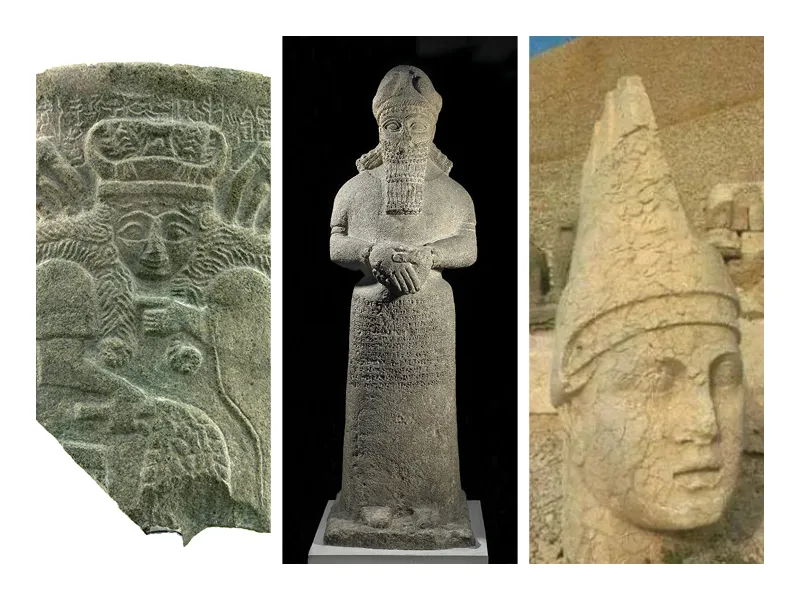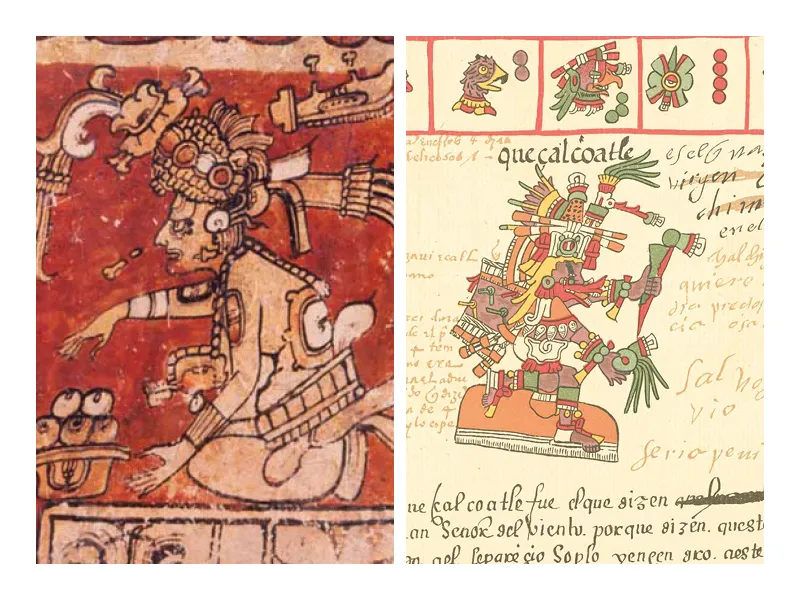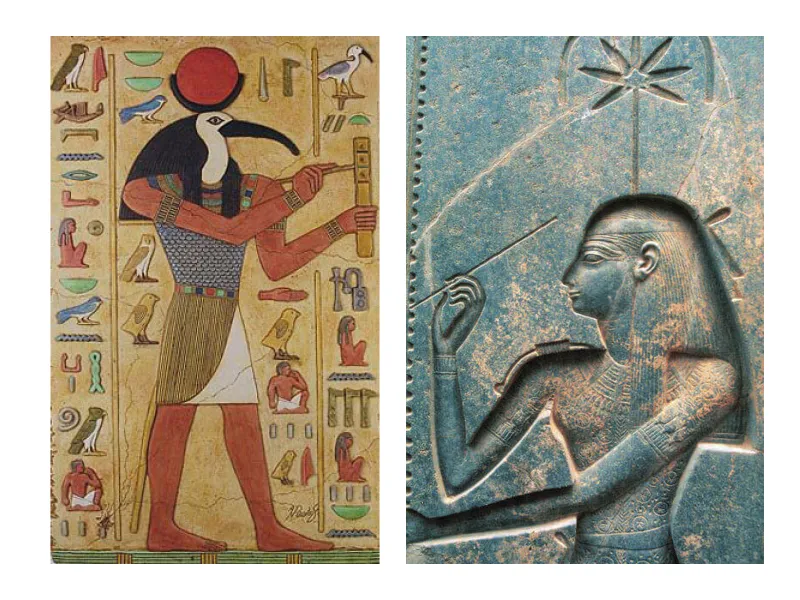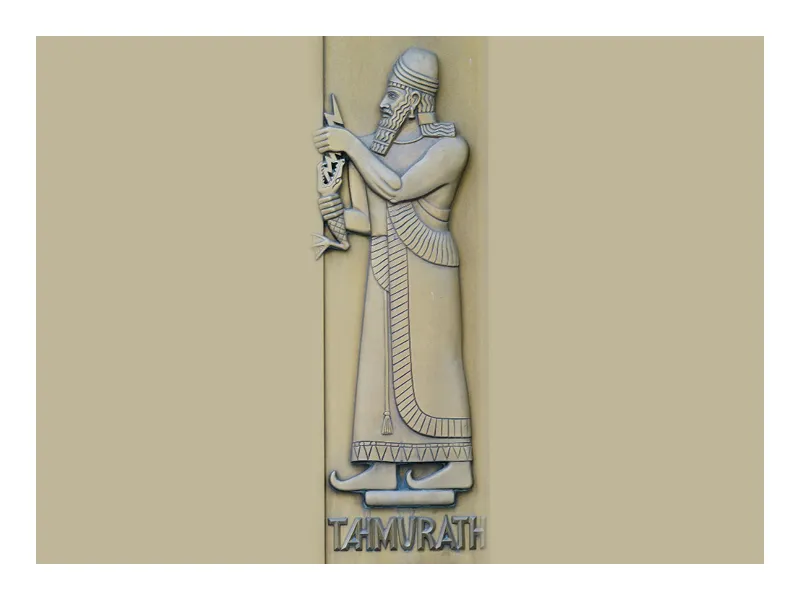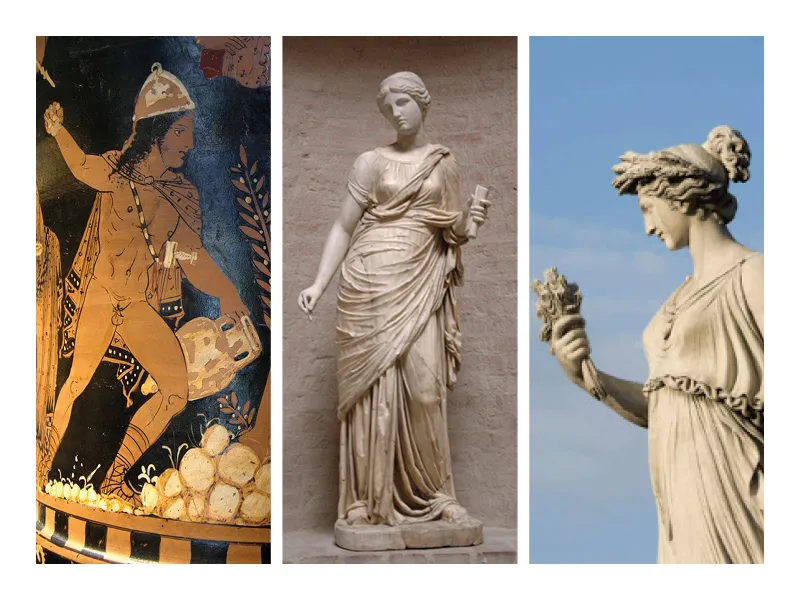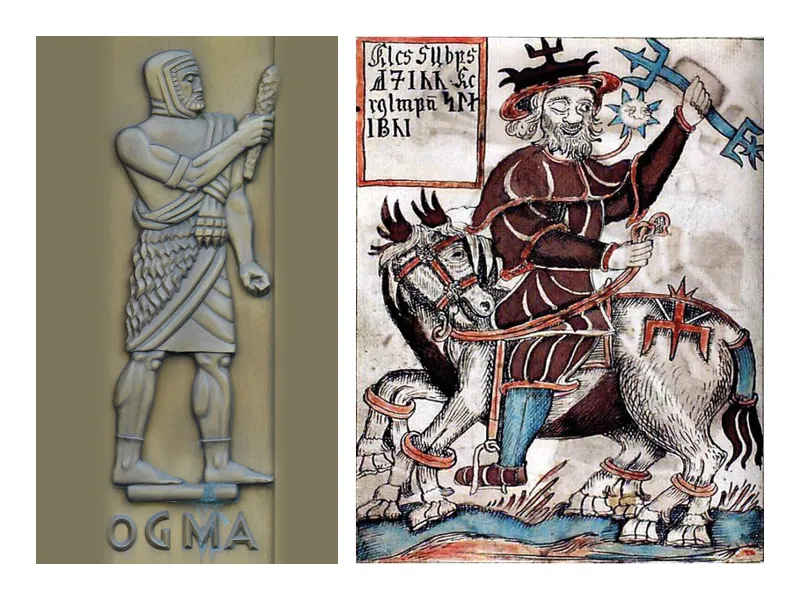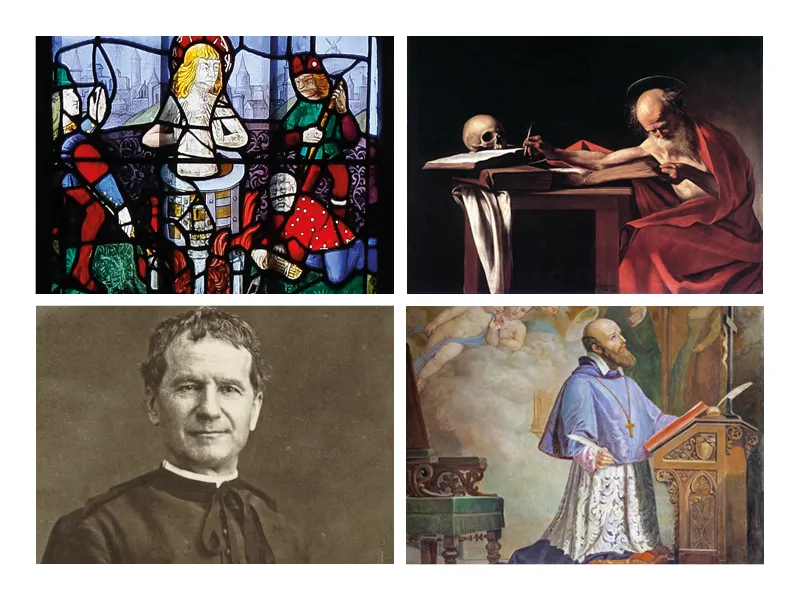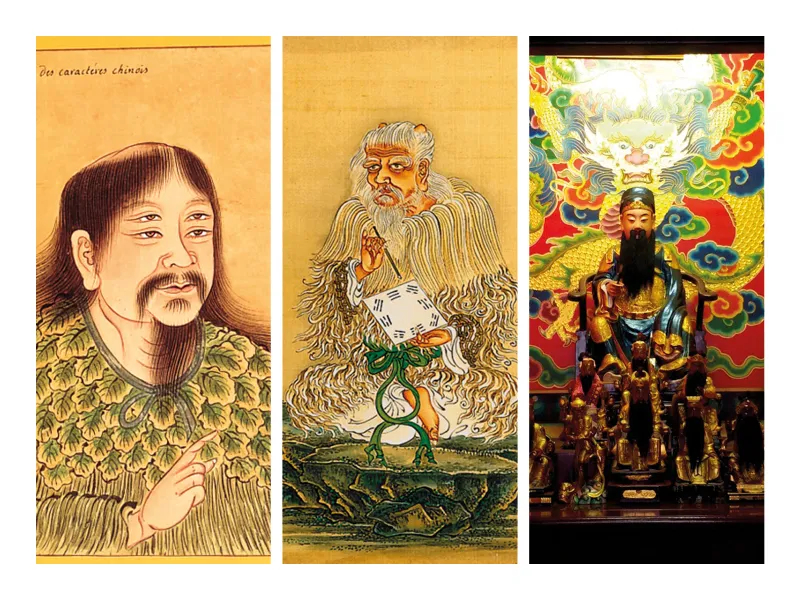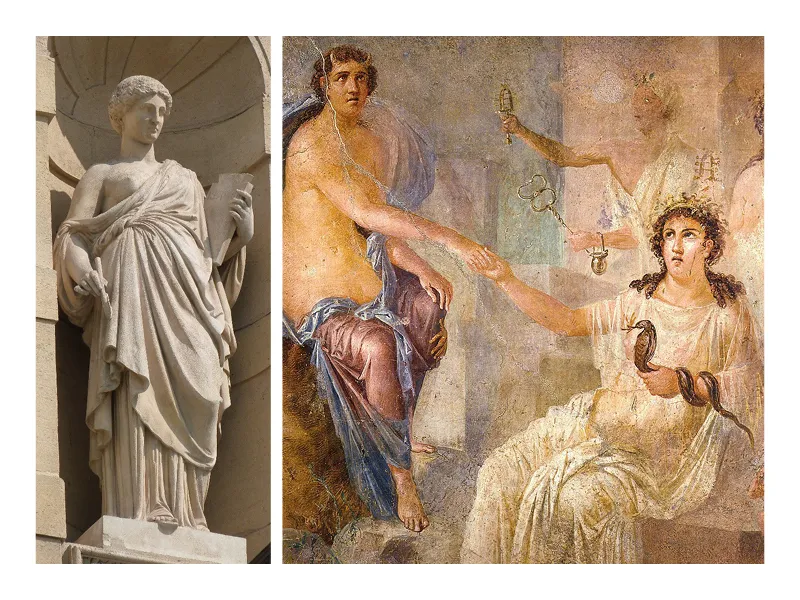
Gods of Type
When mythology becomes a main inspiration in font design
Introduction
Blaze Type has been designing typefaces shaped in mythology since its launch. Whether the references be Biblical (Apoc, Inferi, Armag), Nordic (Surt, Sigurd), mythological (Arges), the fonts published by Blaze Type exploit references linked to universes where the divine cohabits with the profane in a perfect osmosis or within a sacred war.
The demonic or angelic figures of our ancient beliefs, whose role as intermediaries established a link between the real and divine worlds, are supplanted by digital figures, linking the real and virtual worlds. If an archaeologist discovers our civilization in a few millennia, the superheroes of our comic books or our big screens will appear as our contemporary deities.
So it would not be absurd to ask which gods and goddesses are attached to our typefaces? But to answer this question, we can already trace the history of the deities associated with writing in the major religions. This is an opportunity to highlight the human beliefs linked to writing, as well as their evolution over the centuries and across the world.
West: polytheism and writing
Beliefs have no beginning. Their histories begin with man, while the most influential religions are also those related to the text. Writing is, among the different factors of expansion, the one that also allows us to study these ancient mythologies. Also, the deities linked to writing exist from the beginning of antiquity.
Mesopotamia, Sumer, Babylon
The Mesopotamians are considered to be the first people of the Neolithic period, since they were the first to master agriculture, the domestication of livestock, and also writing. Haya is among the oldest gods in the Mesopotamian pantheon. Associated with scribes, but also with grain and agriculture, he thus establishes a close link between writing and stock accounting. This intermediary position is also illustrated by his role as bailiff, guarding access to the gates.
His wife Ninimma is also linked to courtiers and scribes, as well as to children and their education. It would be tempting to establish a link between writing and pedagogy since cuneiform tablets are known to be the size of children's hands and to reproduce writing exercises.
Sumer is one of the Mesopotamian civilisations. It is not surprising to see in the figure of Nisaba (or Nidaba) an echo of Haya and his wife, since she too is associated with grain and writing, and this in the most ancient texts discovered.
"My noble sister, the holy Nisaba, has received the measuring rod and keeps the lazulite standard at her side; she spreads the great powers, sets the boundaries, marks the limits, she has become the secretary of the country... "
His reign is decadent when Sumer is supplanted by Babylon and the figure of Nabu, god of wisdom, minister of Marduk, then co-regent at his side of the Babylonian pantheon. Nabu and his wife Tashmeton are the inventors of writing.
"The god Nabu, the scribe of the universe, has given me a gift of his wisdom [...], I have learned the knowledge that the wise Adapa brought to mankind; the hidden treasures of the scribes' knowledge [...], I have been initiated into the omens of heaven and earth [....], I have solved the complicated divisions and multiplications that defy understanding [...] and I know how to decipher the inscribed stones from before the Flood that are hermetic, dark and confusing."
Later, Nabu would influence the figure of Tir, present in Iranian and Armenian beliefs, who in turn influenced Greek mythology in the form of Mercury.
Nisaba, Nabu & Tir
Egyptian Mythology
Egypt, the second great ancient civilization, inherited the discoveries of the Mesopotamians: agriculture, animal husbandry, but also diplomatic practices, notably with the use of seals. Thoth, the god with the face of an ibis, represents divine intelligence and embodies the word. Under the figure of the moon, he is also the god of healers and magicians, that is to say of divine practices reserved for the initiated. As such, he is also master of all the arts, of speech, of the sciences of numbers and signs. At the crossroads of disciplines, he is also the god of writing and notes, as a scribe, the results of the weighing of the soul of the deceased. More than a creative god, he embodies the word of the creative god.
Her female counterpart in the Egyptian pantheon is Seshat, goddess of wisdom, knowledge and writing. But it is the latter role of scribe that characterizes her more, since her name means "she who scrivens" and she was also called "Mistress of the House of Books".
Toth & Seshat
Iranian Mythology
Tahmuras is the third Shah of the Pichidian dynasty according to Iranian mythology. After making the deevs (demonic creatures) his slaves through magic and strength, they taught him the art of more than thirty different scripts. However, he is also the inventor of looms, good fodder management as well as the domestication of chickens, hunting dogs and falcons.
Tahmurats
Tuareg mythology
Before the appearance of Islam, Tuareg mythology offers us Amerolqis, a giant with remarkable intelligence whose role is to initiate man to knowledge that was not intended for him. It is the archetypal manifestation of traditional social life: music, poetry and writing as an artistic practice.
The Aztec pantheon includes many divine figures. But one of the most important is the feathered serpent god Quetzalcoatl, who was responsible for the invention of calendars and books. He is also the protector of goldsmiths and craftsmen.
Itzamna & Quetzalcoatl